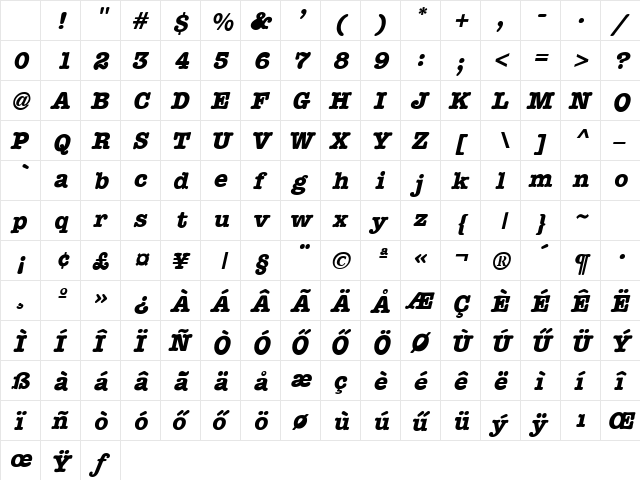
Complete Hu_Typewriter BoldItalic Regular glyph index. Displaying only characters natively supported by Hu_Typewriter BoldItalic Regular font.
Hu_Typewriter BoldItalic uses fixed-width spacing throughout, giving it the structured, systematic character associated with coding environments and technical documentation. The slanted form adds forward momentum and visual energy. Its bold stroke weight gives it real presence on the page.